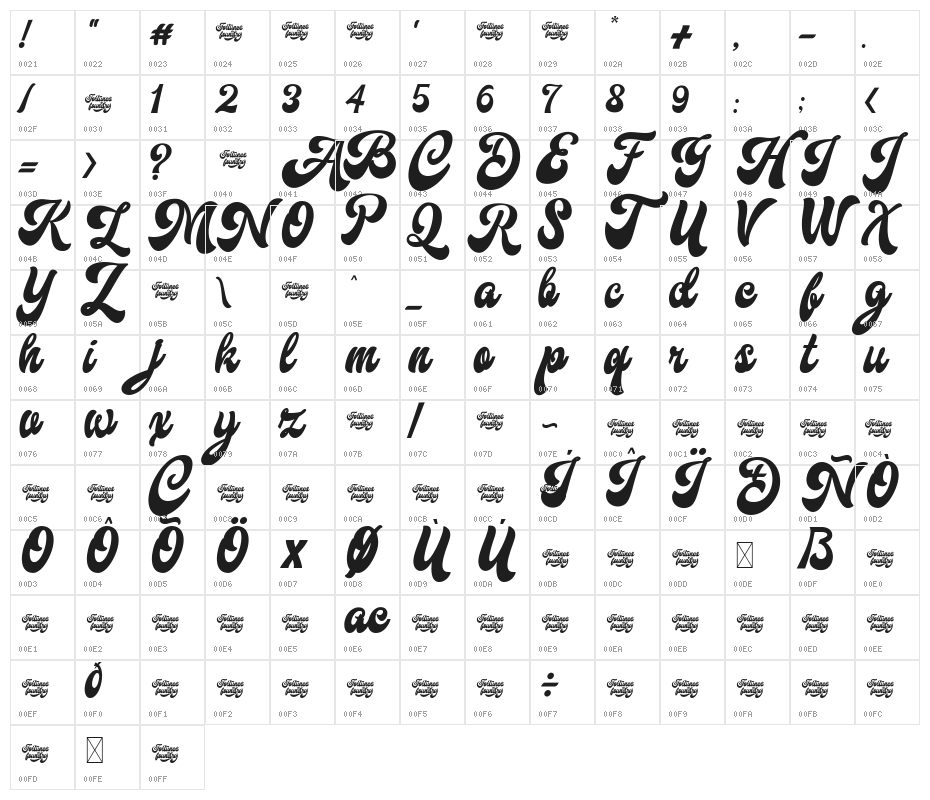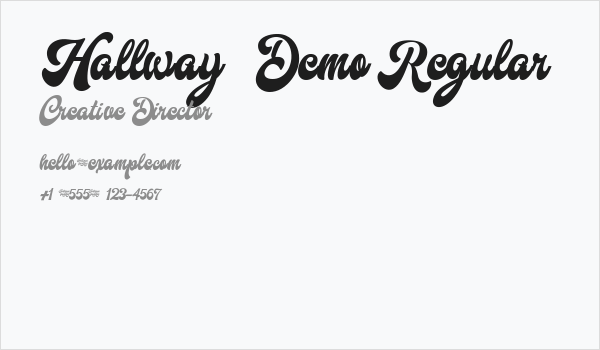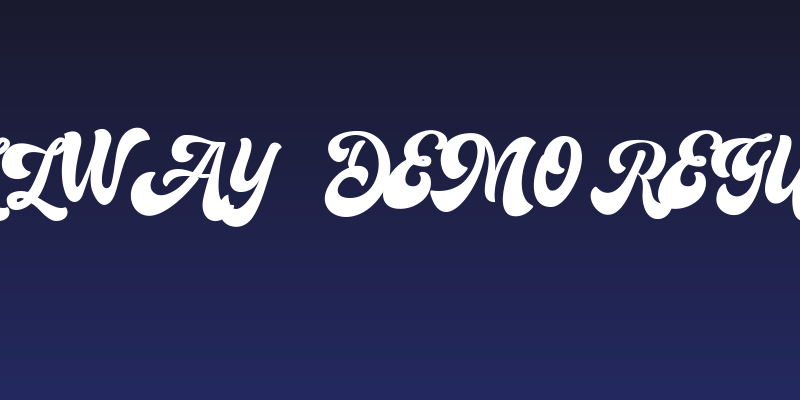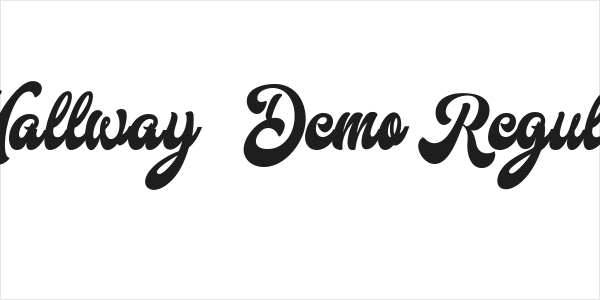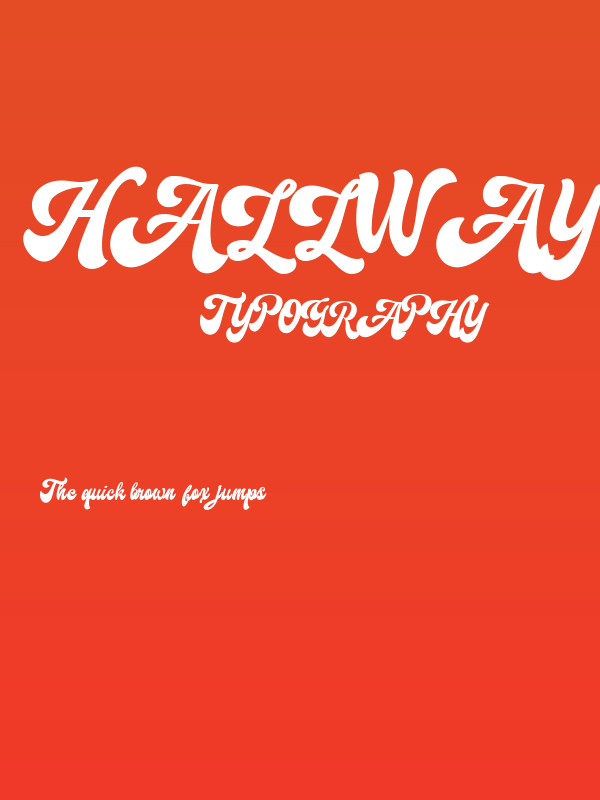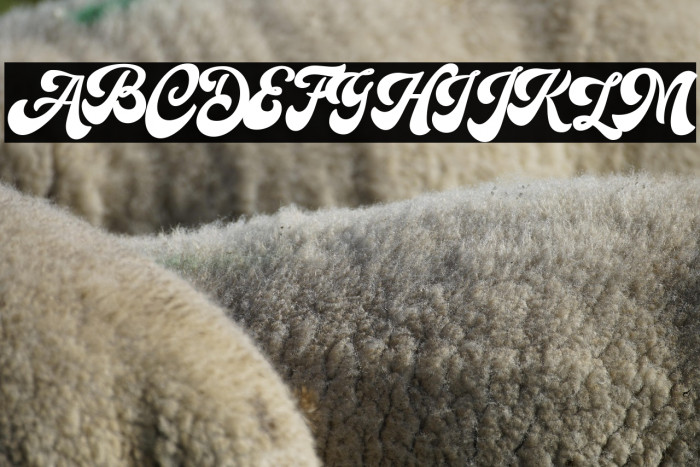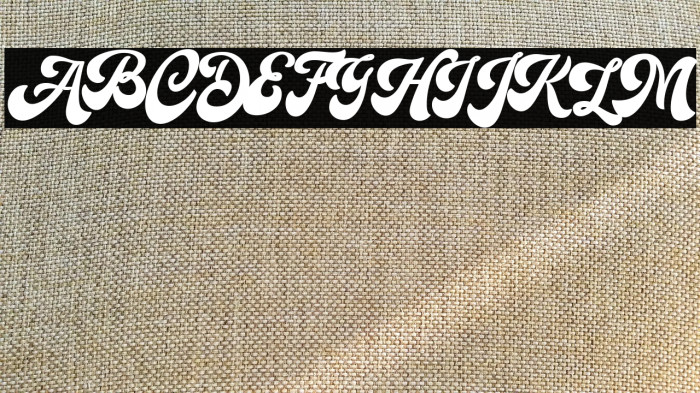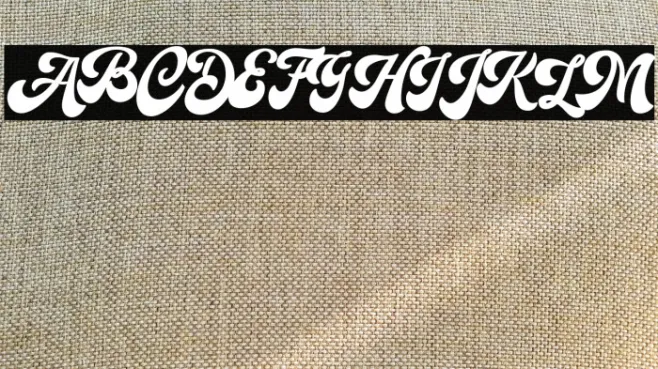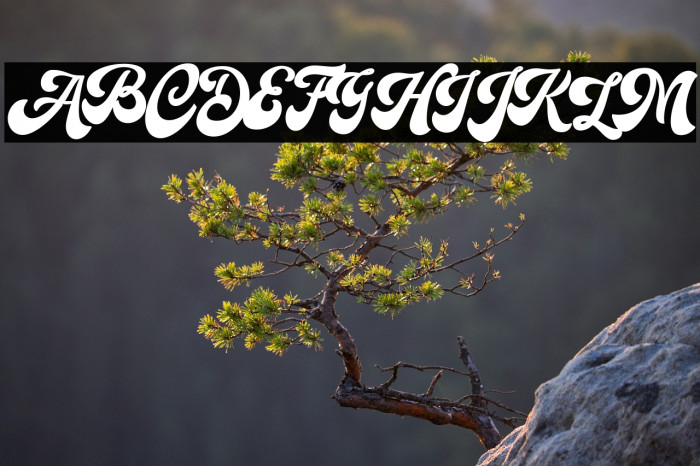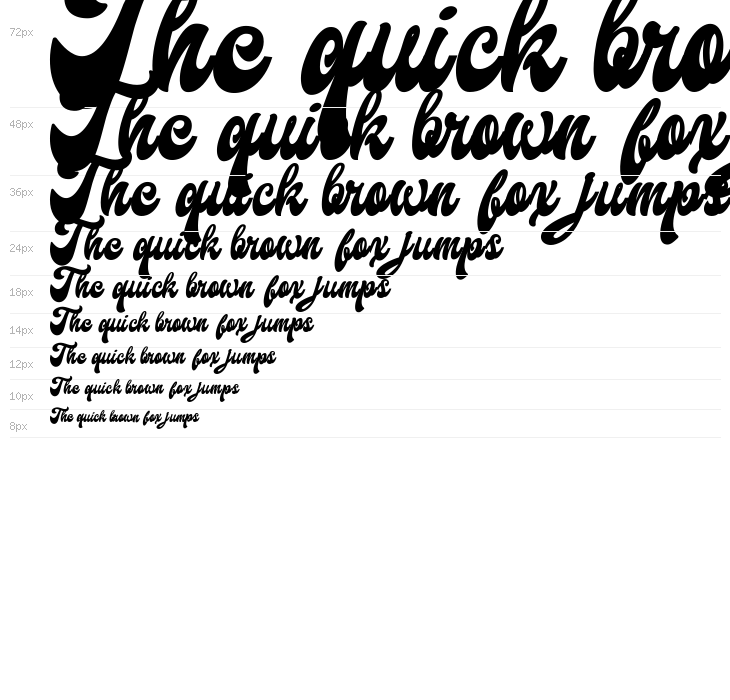
Hallway Demo Regular Font
Hallway Demo Regular Description
This font features a bold and flowing script style with a strong presence. The characters are connected, creating a sense of fluidity and movement. The uppercase letters are ornate and slightly larger than the lowercase, which are more compact but maintain the same elegant style. Numbers and special characters are designed to match the overall aesthetic, ensuring consistency across all glyphs. The font's thick strokes and smooth curves give it a dynamic and energetic feel, making it suitable for attention-grabbing designs.
| Use Case | Logos, Headlines |
| Proposed Projects | Ideal for branding, logos, invitations, and decorative headlines. |